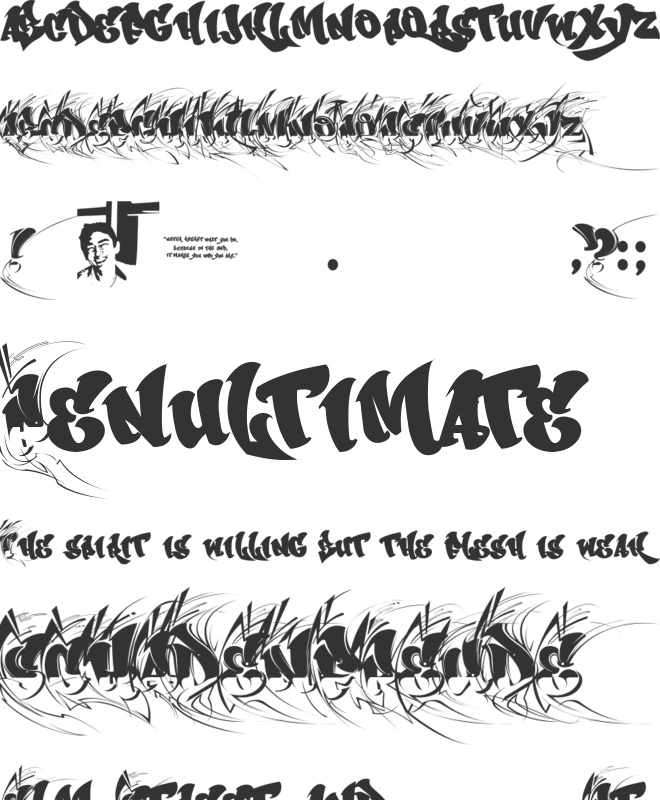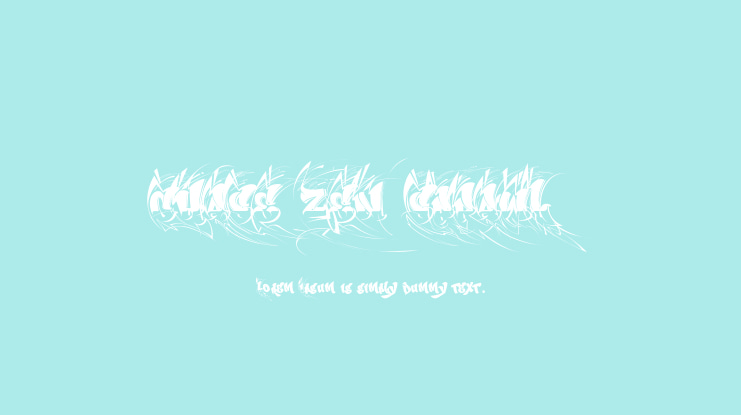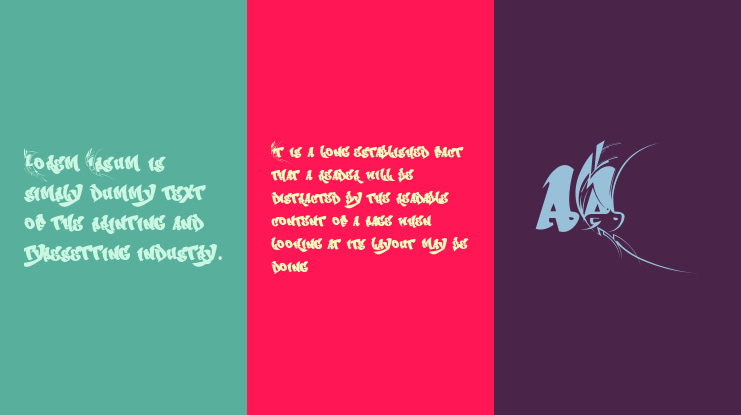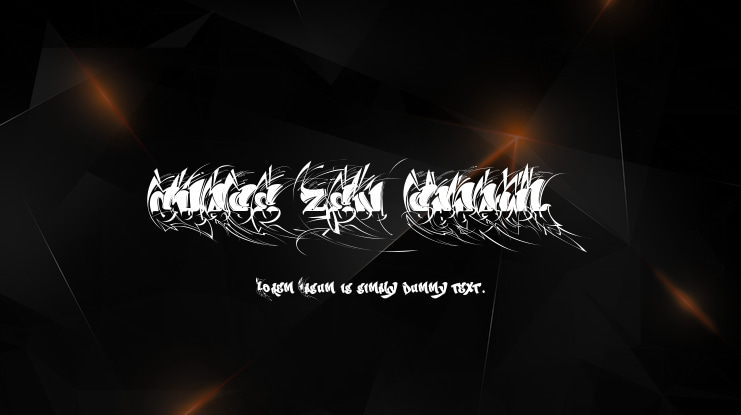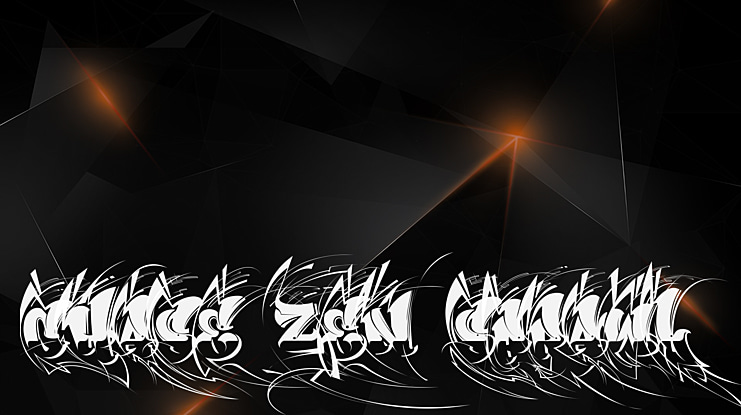
CHASE ZEN SPRAWL Font
Chase Zen was my nephew. He die September of this year. He was 21. I want to create a group of typeface to give thanks to those who were his friends, From the Tien family to you. We appreciate your love and support. Thank you. we are truly grateful.
Design note: this font works in overlap. as in the upper case over laps the lower case. creating a snug fit. its a display font.